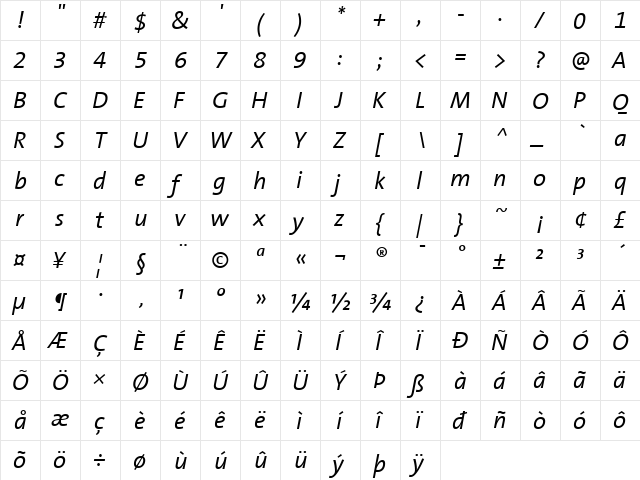
TheSansCorrespondence Italic
| Foundry | Luc[as] de Groot developer TheTypes bv, Amsterdam, published by FontShop International for FontFont release |
Design Context for TheSansCorrespondence Typeface
TheSansCorrespondence takes a measured approach to typography — its balanced proportions and neutral character make it a reliable workhorse for both digital and print work. Its italic angle brings a sense of urgency and motion to the letterforms.